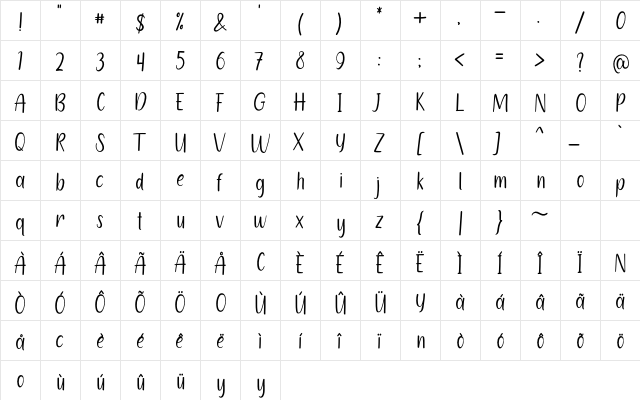
The Sylvatica Regular
Design Context for The Sylvatica Typeface
The Sylvatica offers clean, dependable letterforms without strong stylistic allegiance, making it a practical choice for designers who need flexibility.